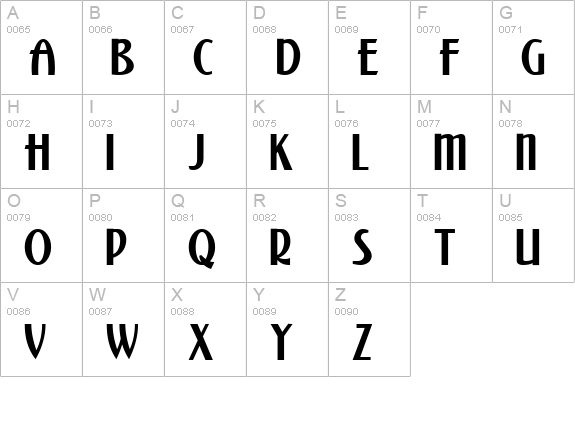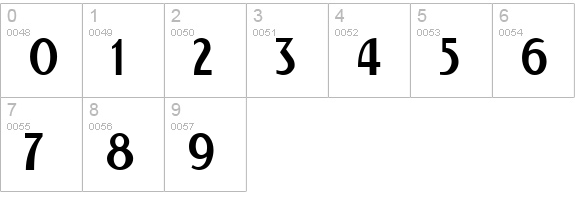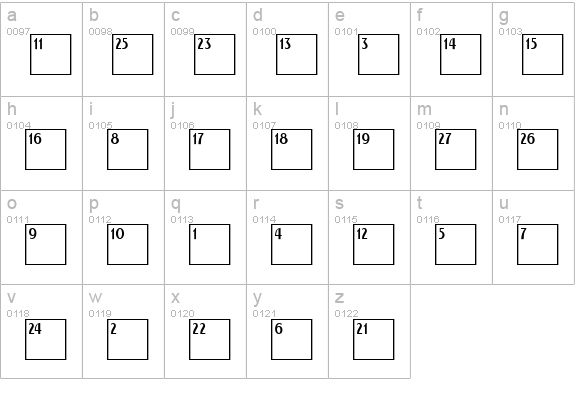
Calendar Normal Font Details
Calendar Normal is the standard, neutral variant in the Calendar typeface family \xE2\x80\x94 well suited to general body text, paragraphs, and standard typographic work.